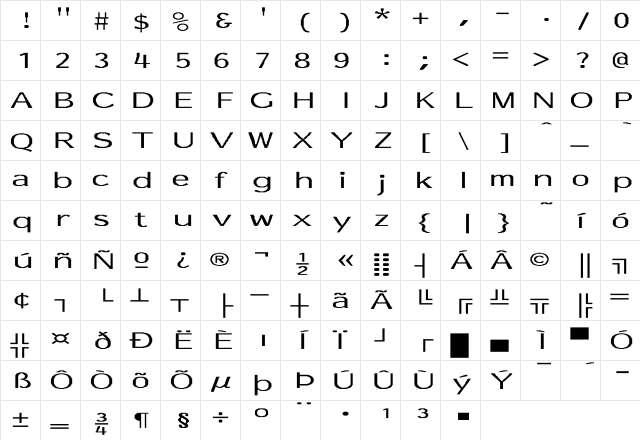
Essay-Normal Ex Regular Font Preview
Essay-Normal Ex Regular
Essay-Normal Ex Regular Font Details
Design Context for Essay-Normal Ex Typeface
Essay-Normal Ex offers clean, dependable letterforms without strong stylistic allegiance, making it a practical choice for designers who need flexibility.